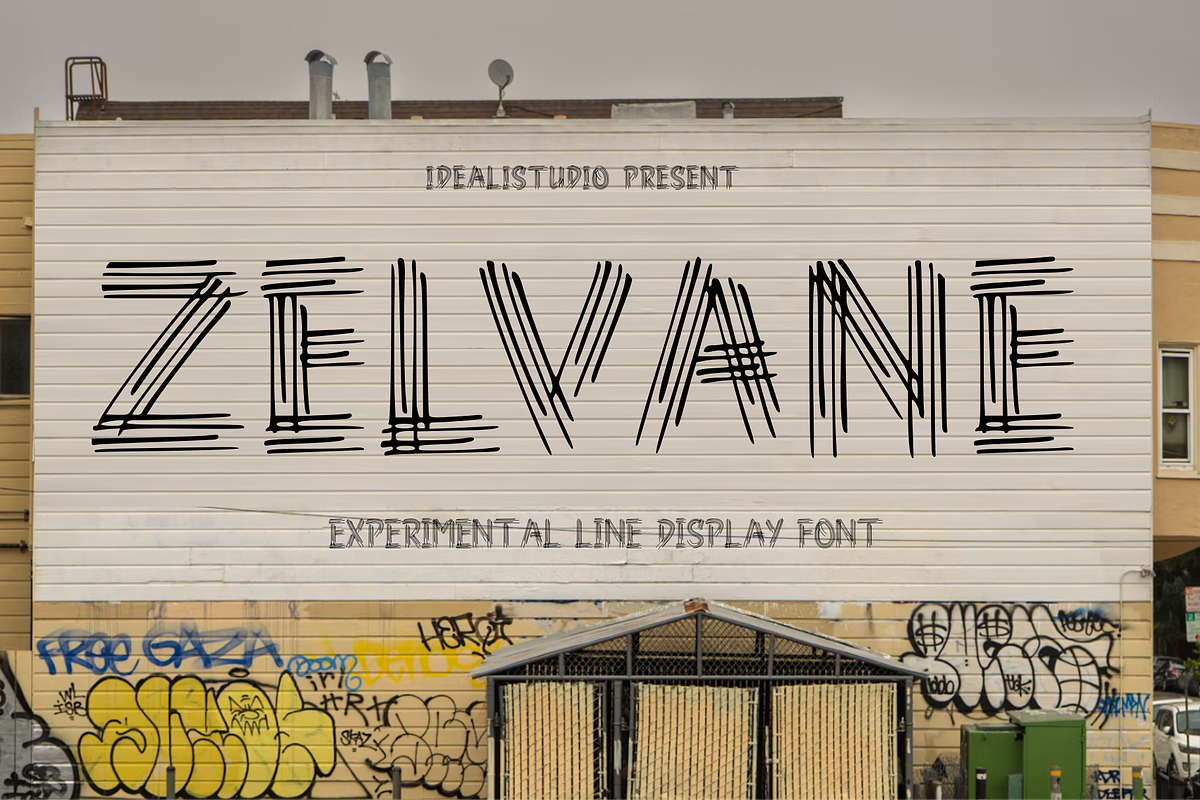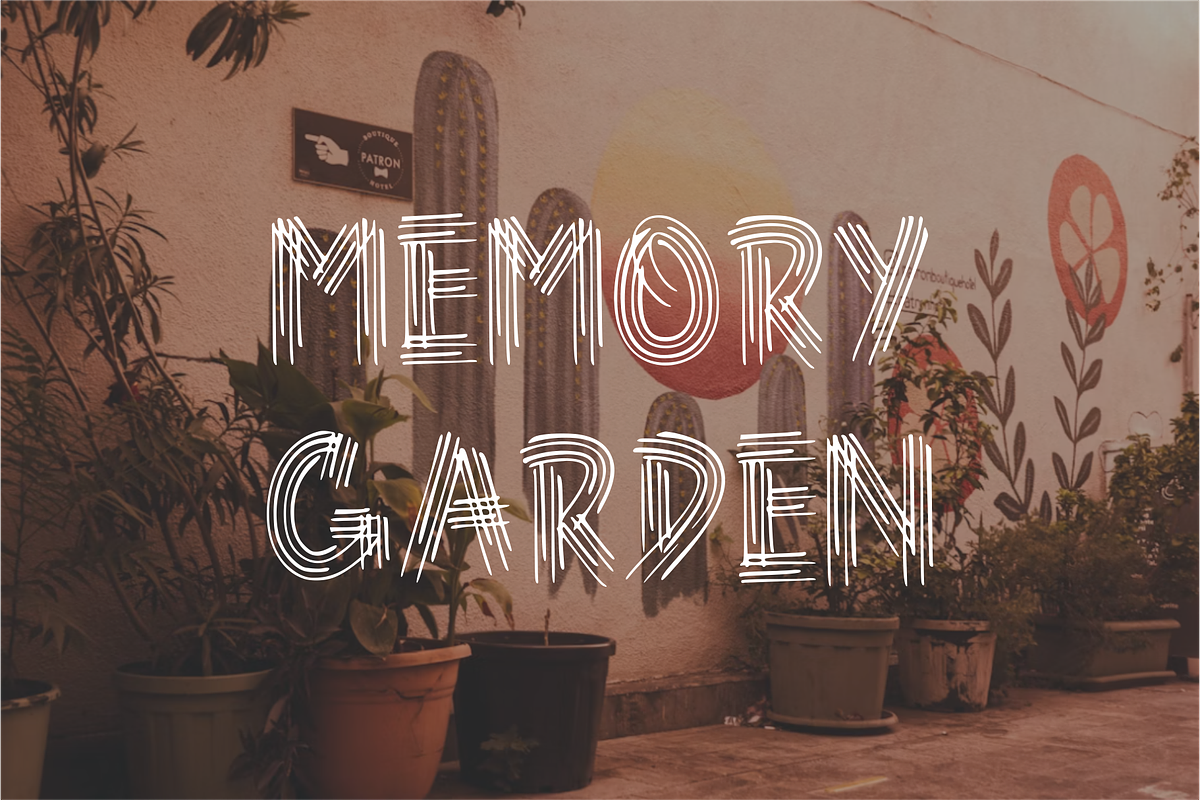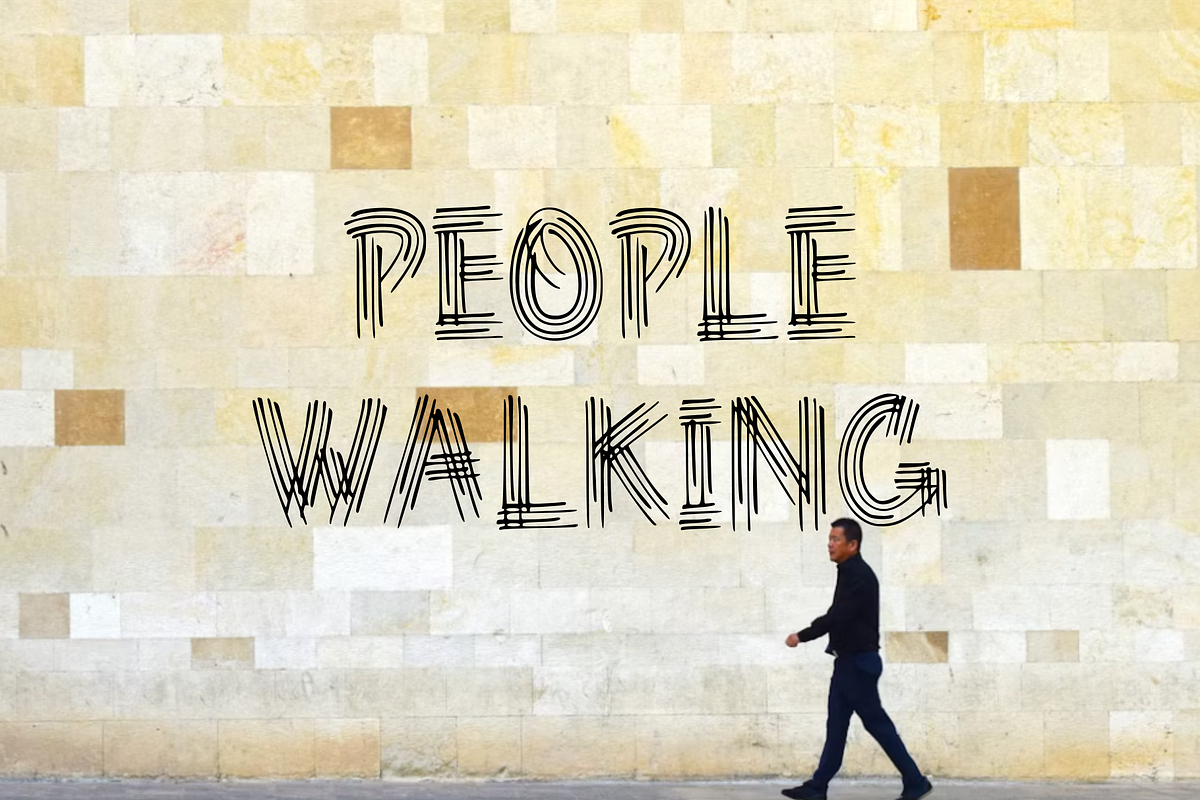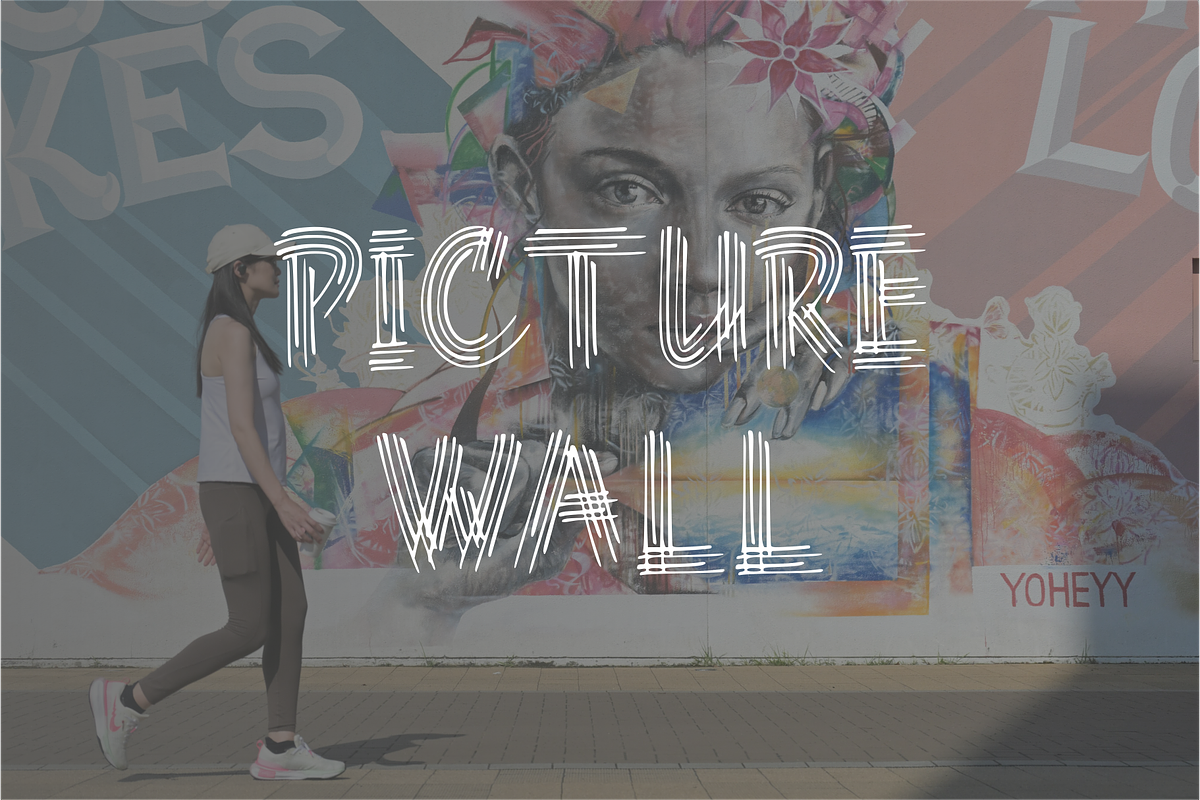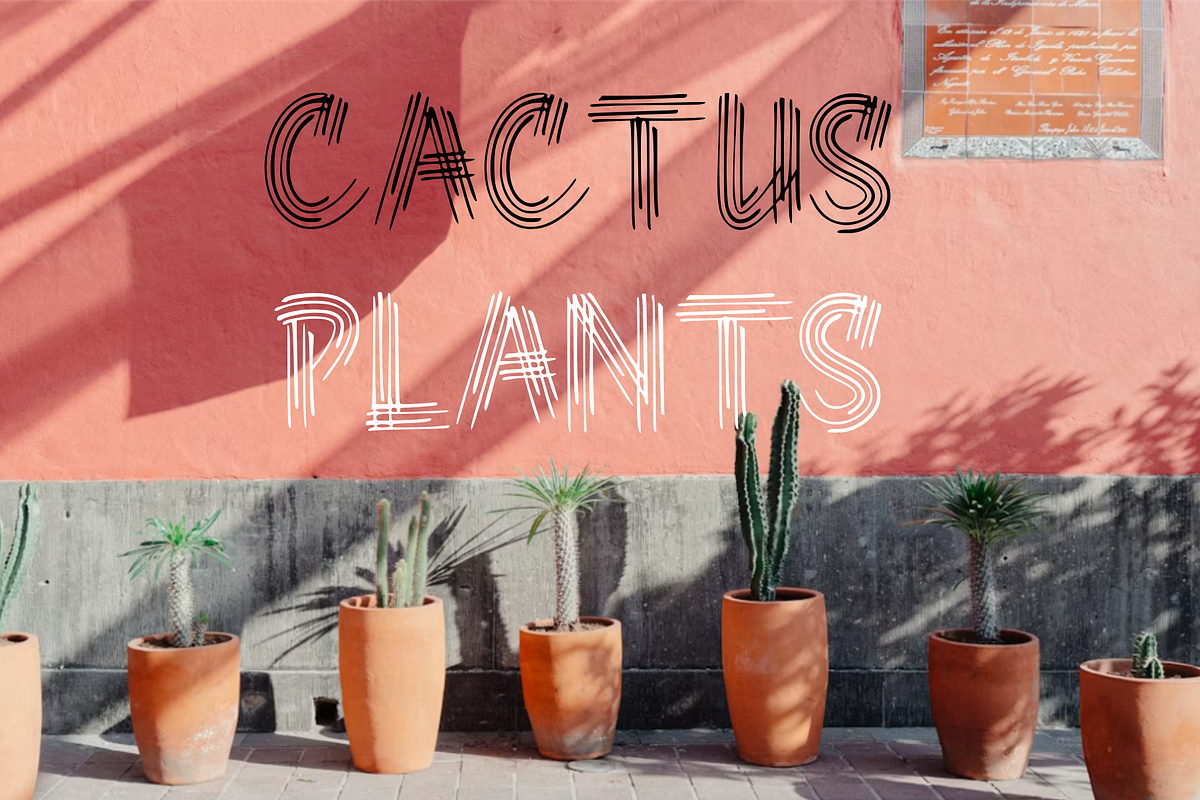
Zelvane – Elegant Linear Display
Zelvane – Elegant Linear Display Font
Zelvane is an elegant experimental display font that combines refined linear forms with a bold contemporary aesthetic. Built from carefully arranged lines and geometric structures, Zelvane creates a distinctive visual rhythm that feels artistic, futuristic, and sophisticated.
Its unconventional letterforms make it ideal for attention-grabbing typography, while the clean linear construction gives it a refined and modern character. Zelvane works especially well for posters, fashion branding, editorial designs, album covers, logotypes, headlines, packaging, and creative advertising.
Designed to make a strong visual statement, Zelvane brings an experimental edge to modern typography while maintaining an elegant and recognizable appearance.
Zelvane – Elegant Linear Display Font is perfect for designers looking to add a unique, artistic, and sophisticated typographic style to their projects.